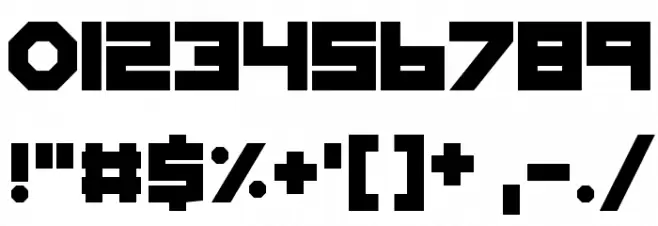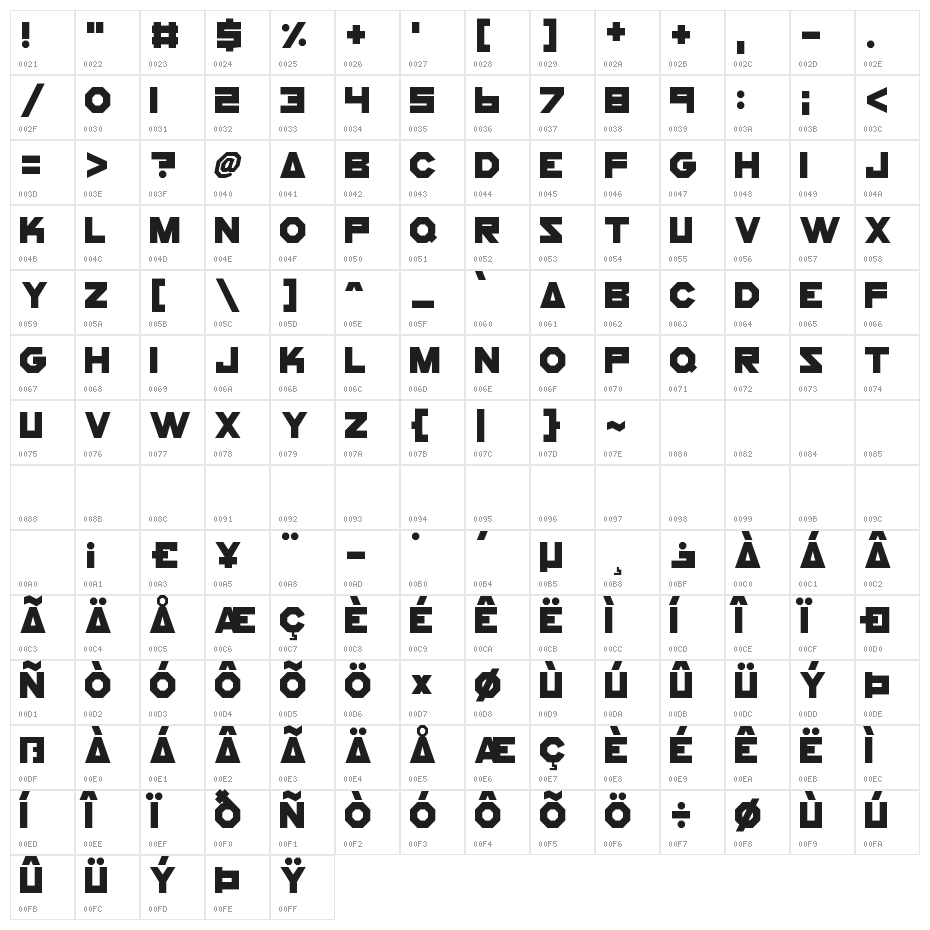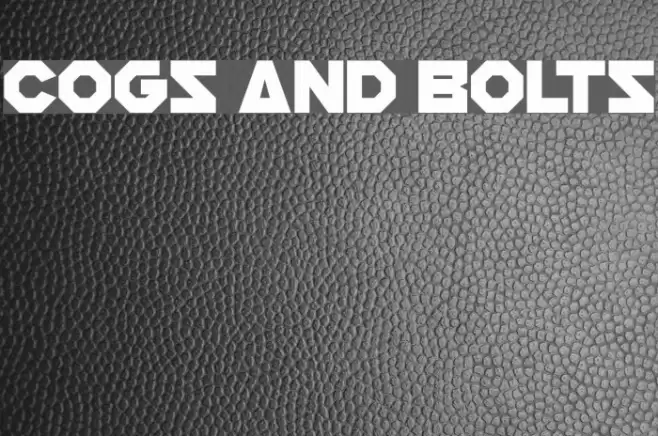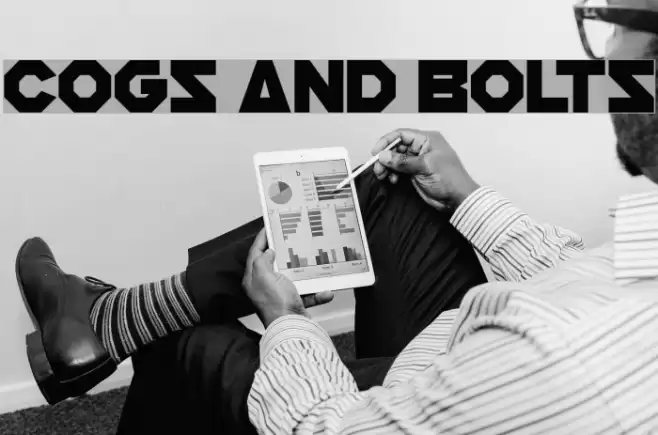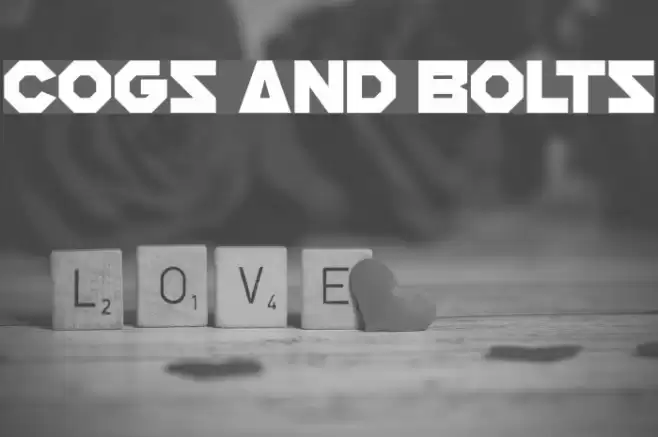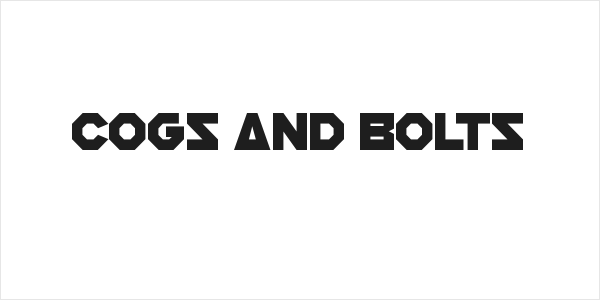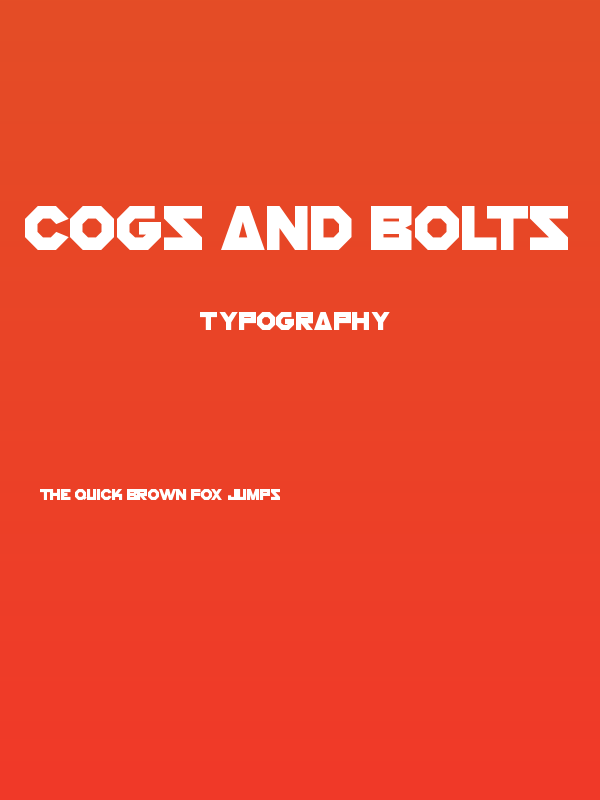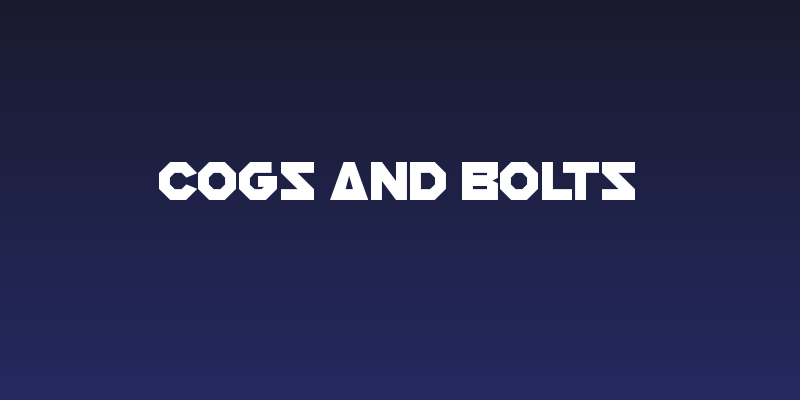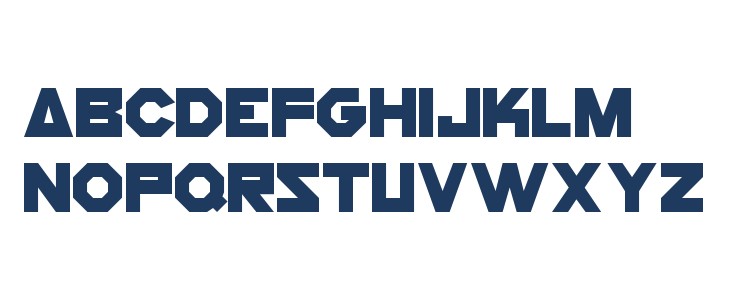
Cogs And Bolts Font
Cogs And Bolts Description
This font features a bold, geometric design with a distinct industrial feel. The characters are constructed with sharp angles and straight lines, reminiscent of mechanical parts or machinery. The uppercase letters are uniform in height, with a consistent width that gives the font a blocky appearance. The numerals and special characters follow the same angular style, maintaining the cohesive industrial theme. This font is highly legible and makes a strong visual impact, suitable for projects that require a modern, edgy look.
| Overall Style | Modern, Industrial |
| Proposed Projects | Ideal for branding, posters, video game design, and any project needing a strong, industrial look. |